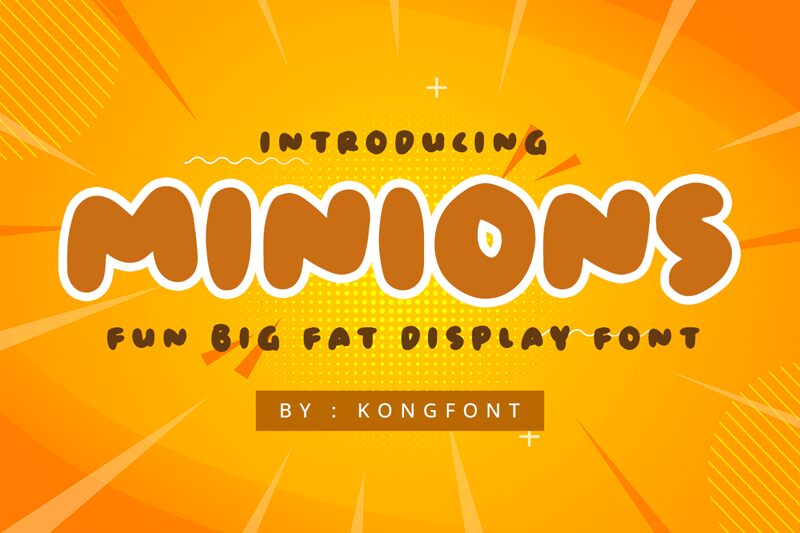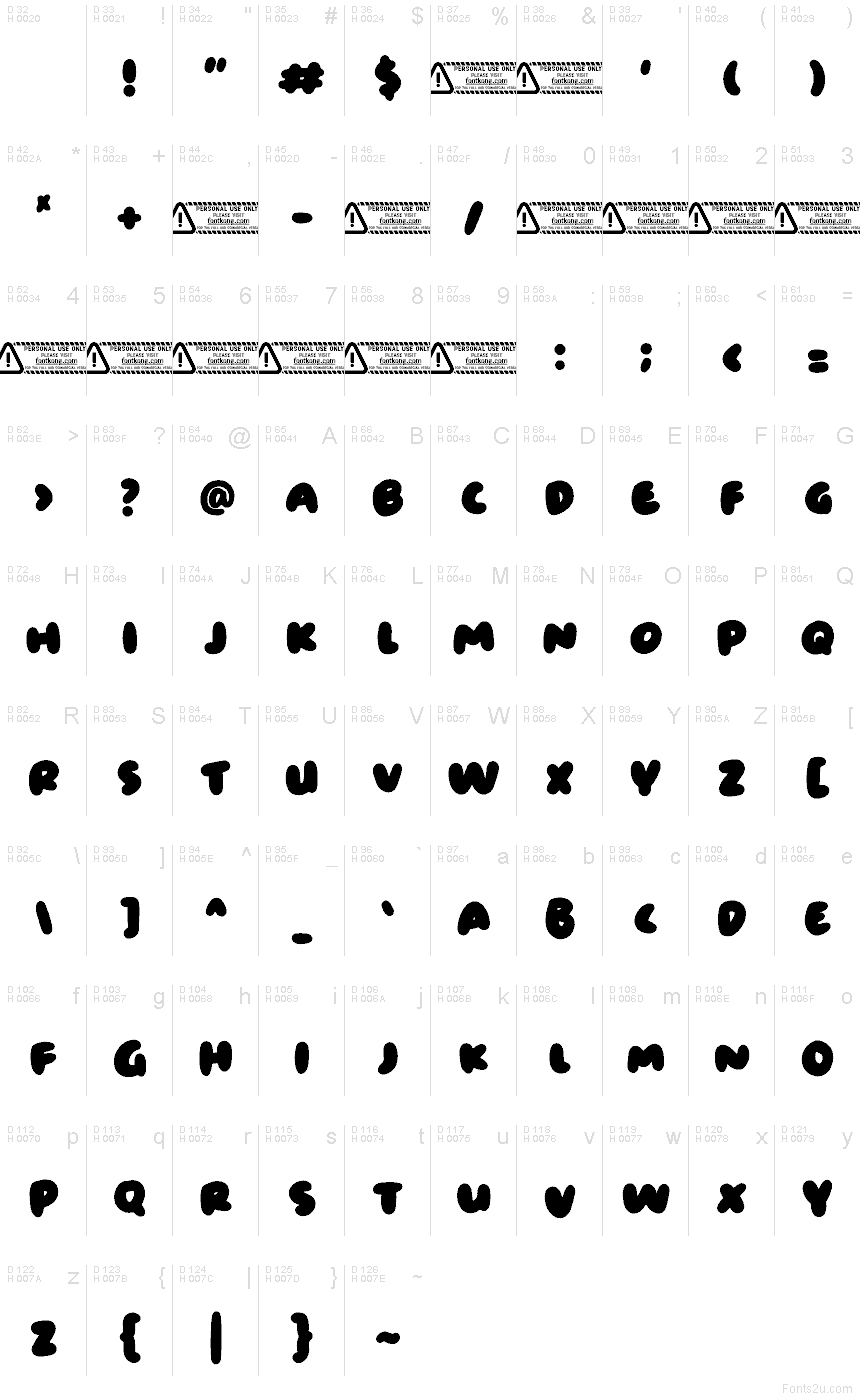
Minions font by Kong Font is a free cartoon display typeface that looks like it’s been drawn with a fat marker and then gently squished. The chunky, inky letters wobble just enough to feel hand-made and mischievous, with soft curves that read clearly even at a distance. It has a bouncy, energetic rhythm that instantly says “fun” without sacrificing legibility.
Using Minions, you can headline kids’ book covers, birthday invitations, game logos, YouTube thumbnails, classroom posters, and playful packaging that needs bold personality. This free font really shines when it’s big and loud, so let it take over your titles and pair it with a simple rounded sans serif for smaller supporting text.